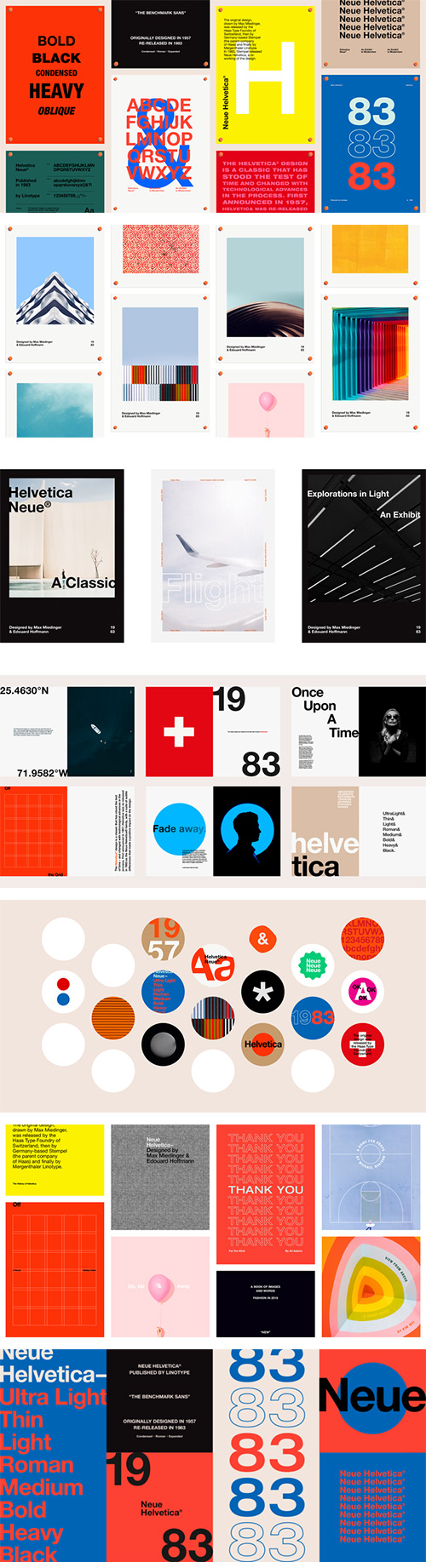
Neue Helvetica by Linotype - 59 Styles OTF Updated!
- This typeface, designed by Max Miedinger and other project members at the Haas’sche Schriftgiesserei, has become one of the most famous and popular typefaces in the world, thanks to the marketing strategy of Stempel and Linotype. It forms an integral part of many printers and operating systems. The original letterforms of Helvetica had to be modified for the Linotype system. Over the years, Helvetica was expanded to include many different weights, but these were not coordinated with each other.